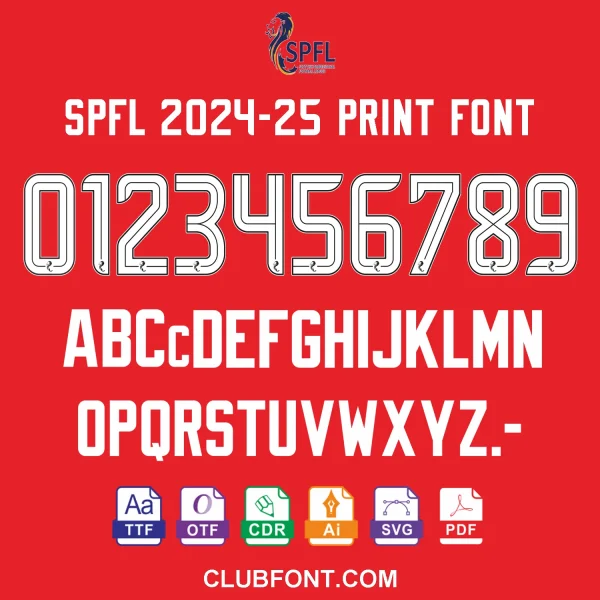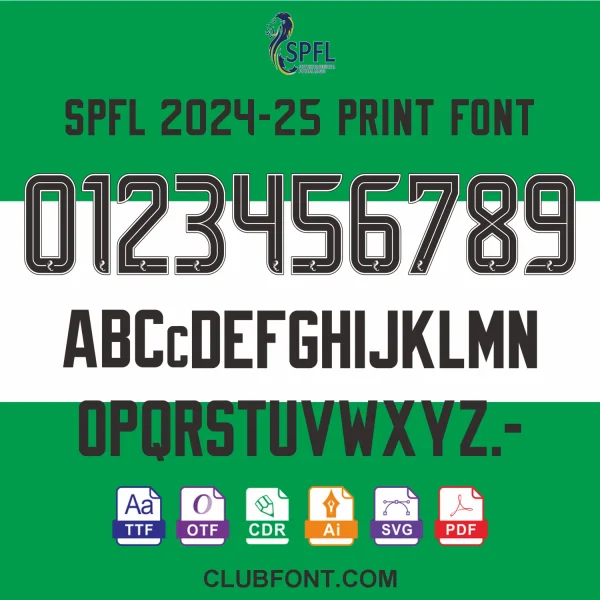
• Glyphs: Full A-Z alphabet, 0-9 numerals, and punctuation.
The SPFL 2024-25 Font replicates the official matchday typography seen across the Scottish leagues. Unlike flat images, our vector files allow infinite scaling without quality loss. TTF/OTF files streamline your workflow, letting you type names and numbers instantly, while CDR/PDF files provide the raw paths needed for cutting machines.